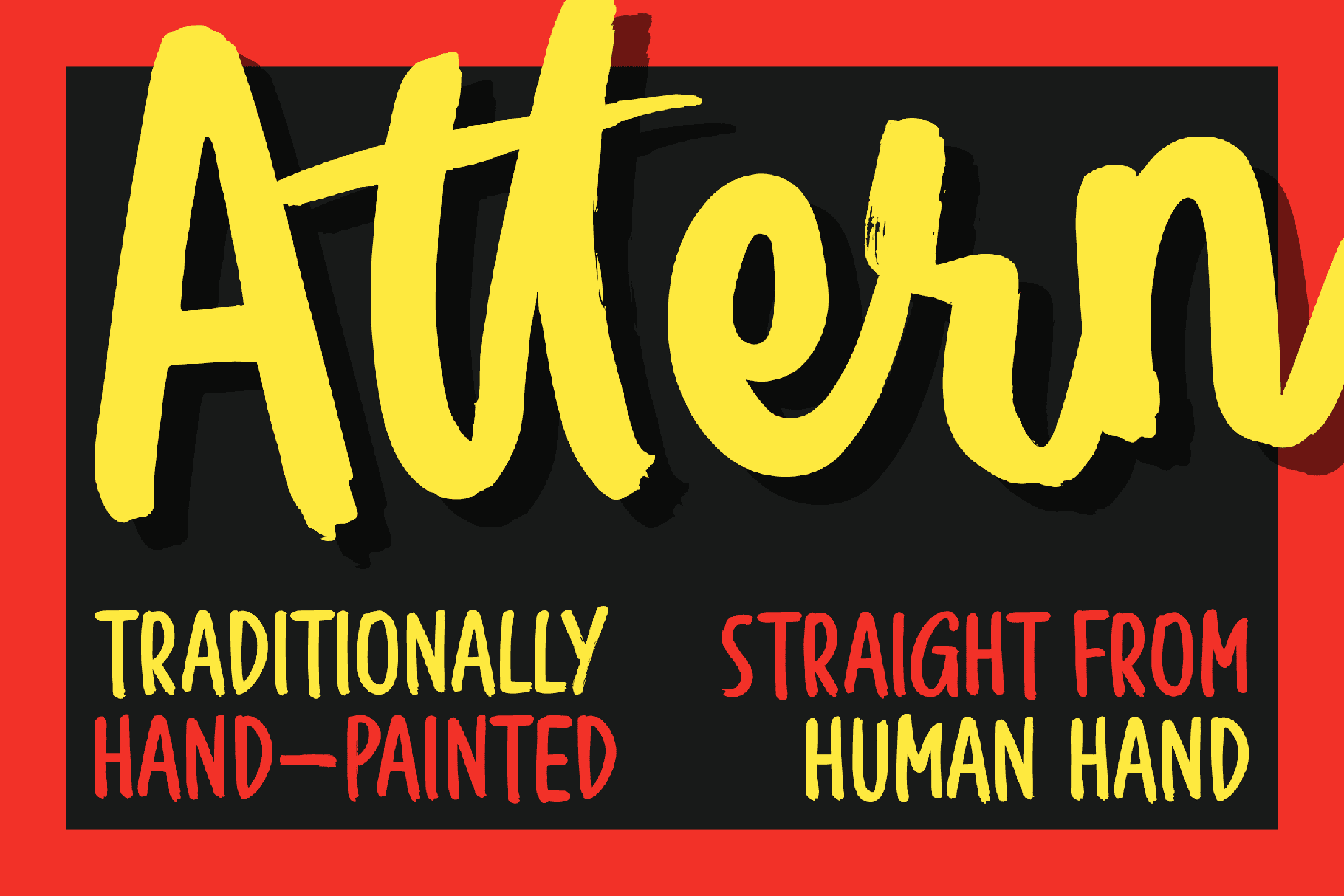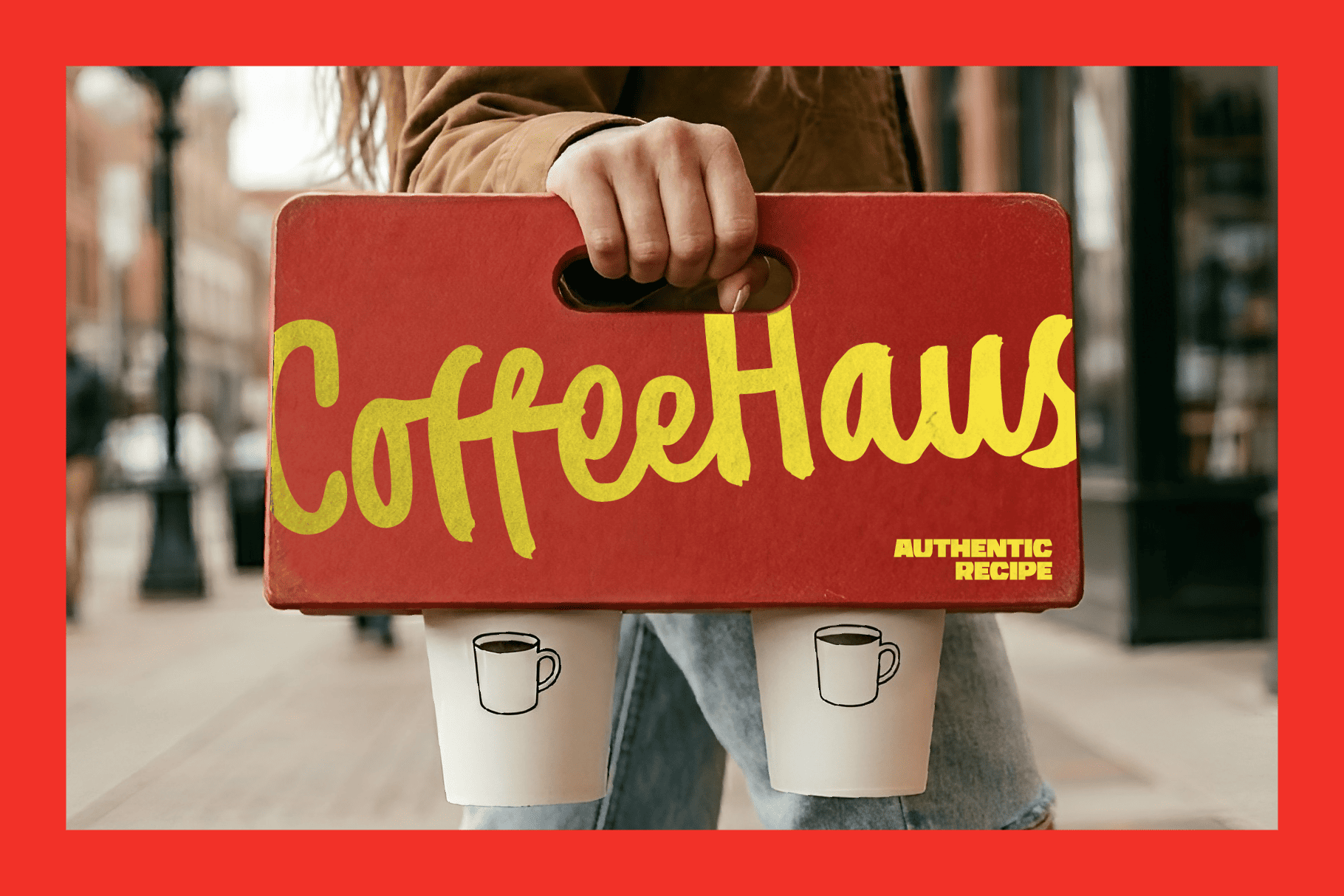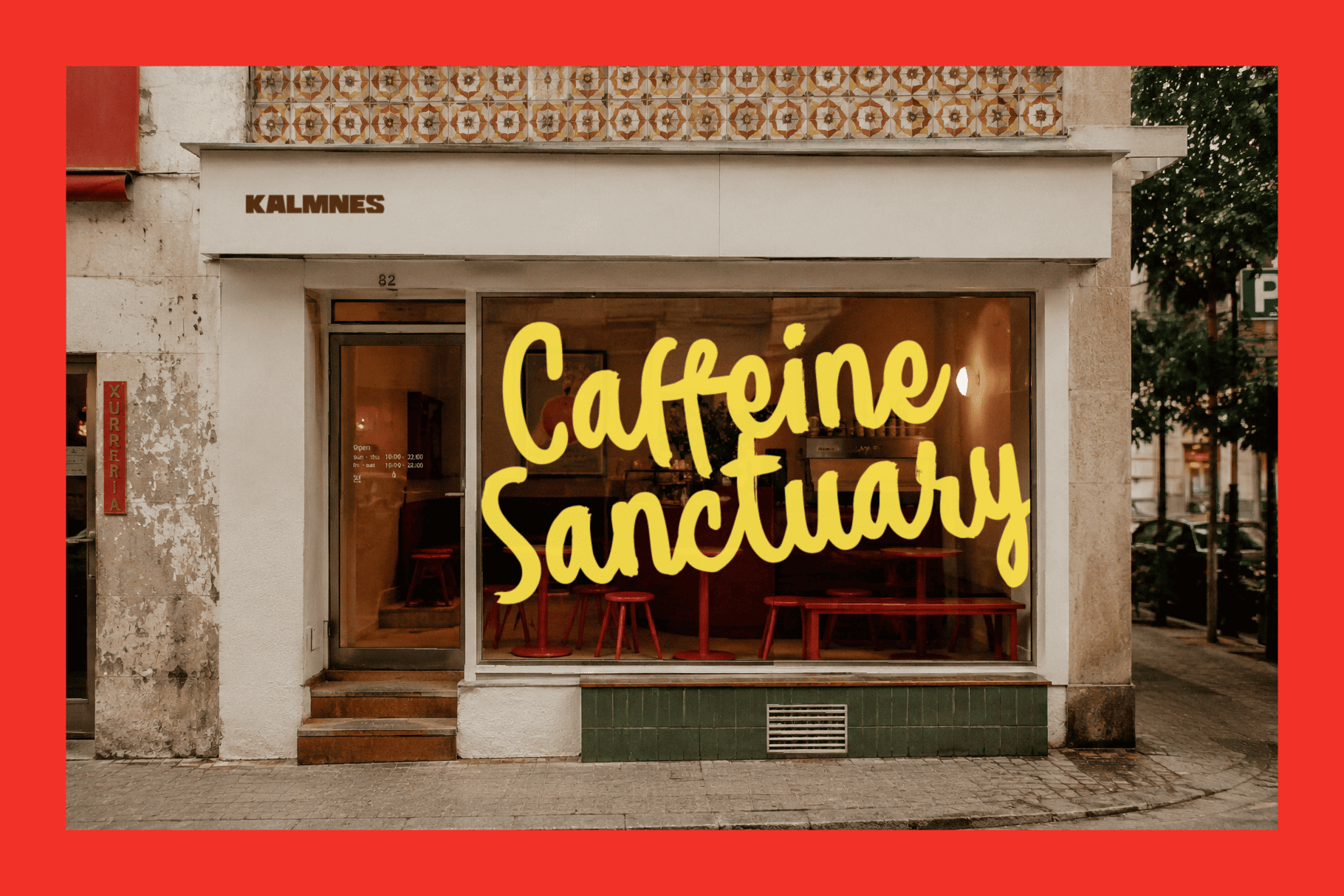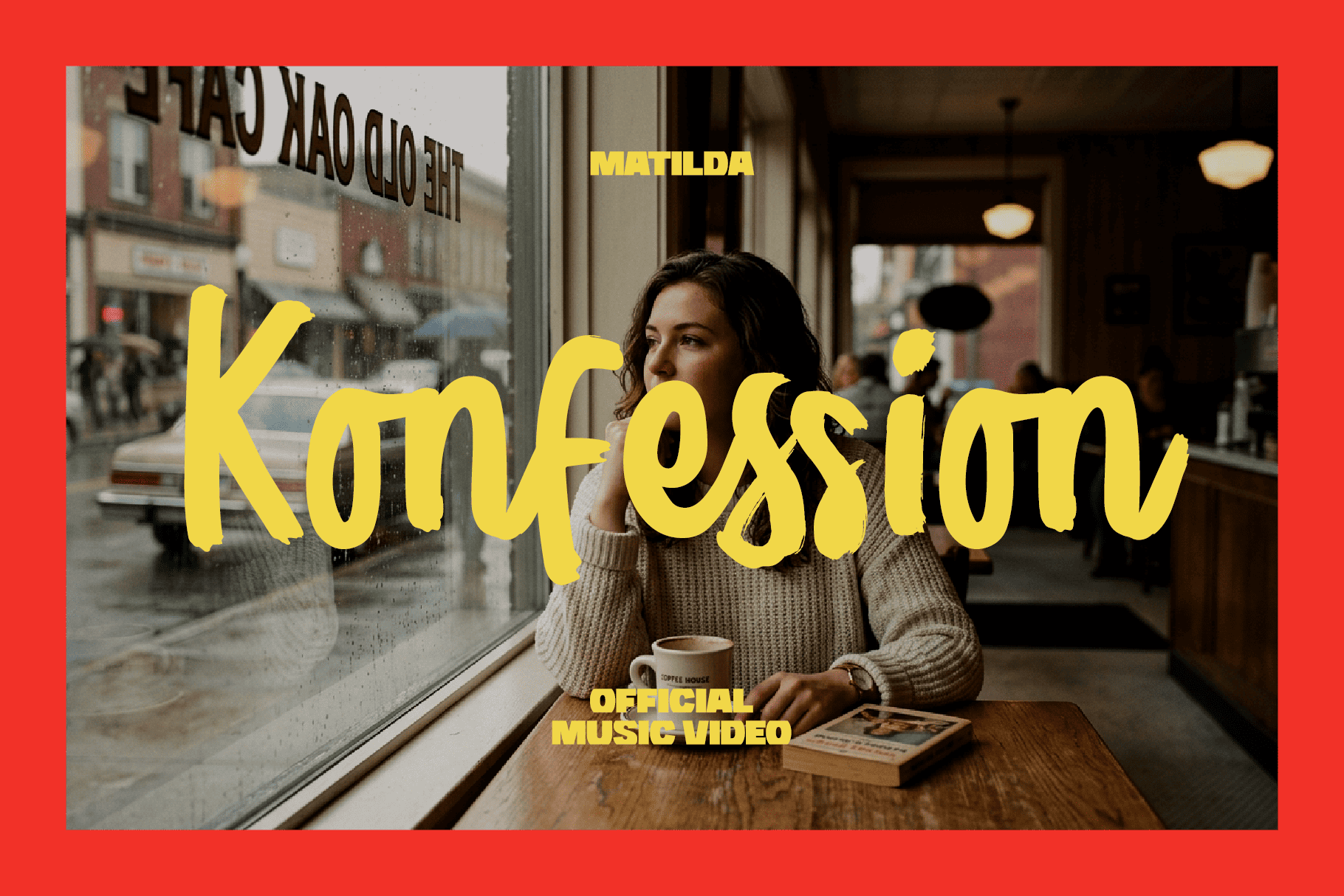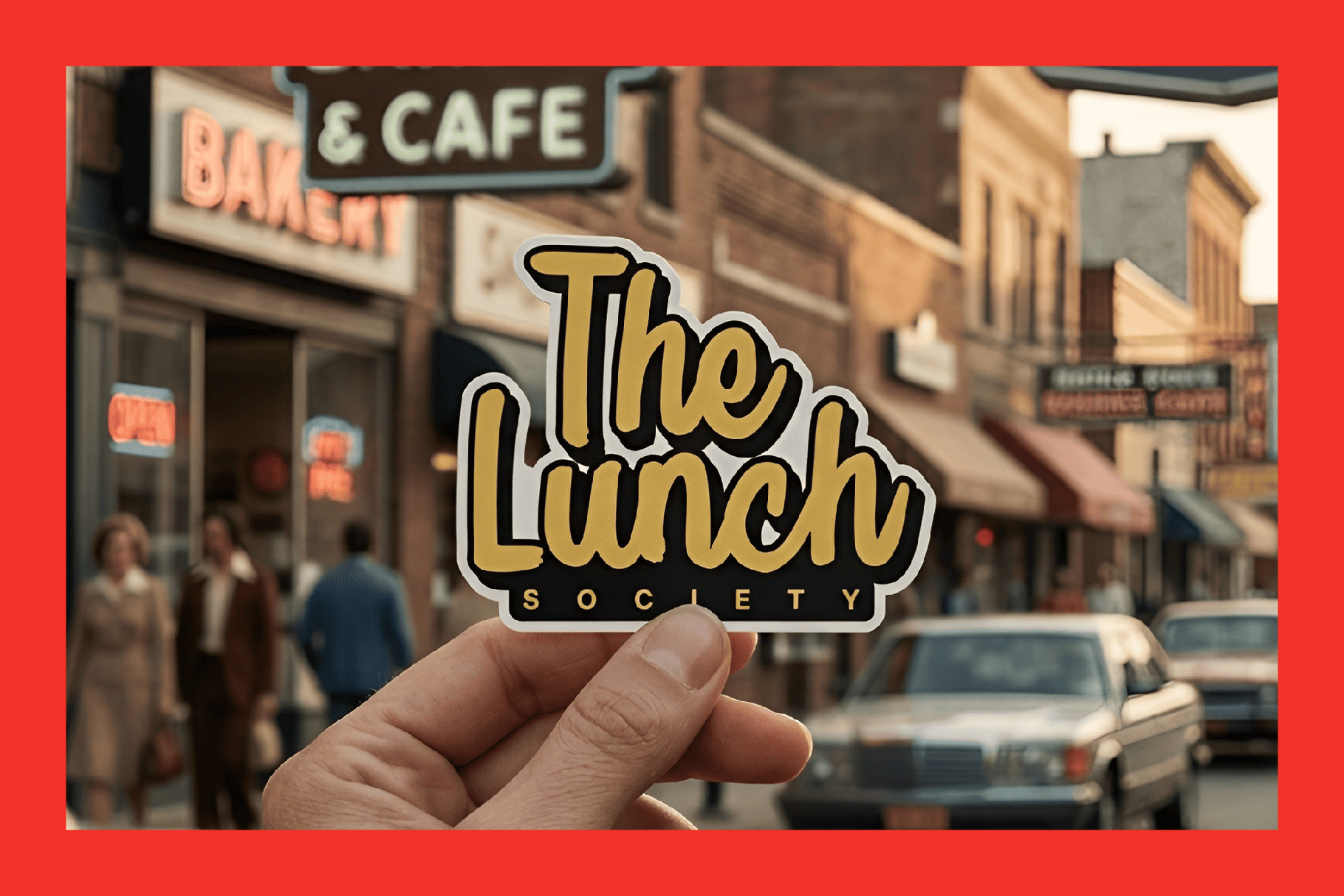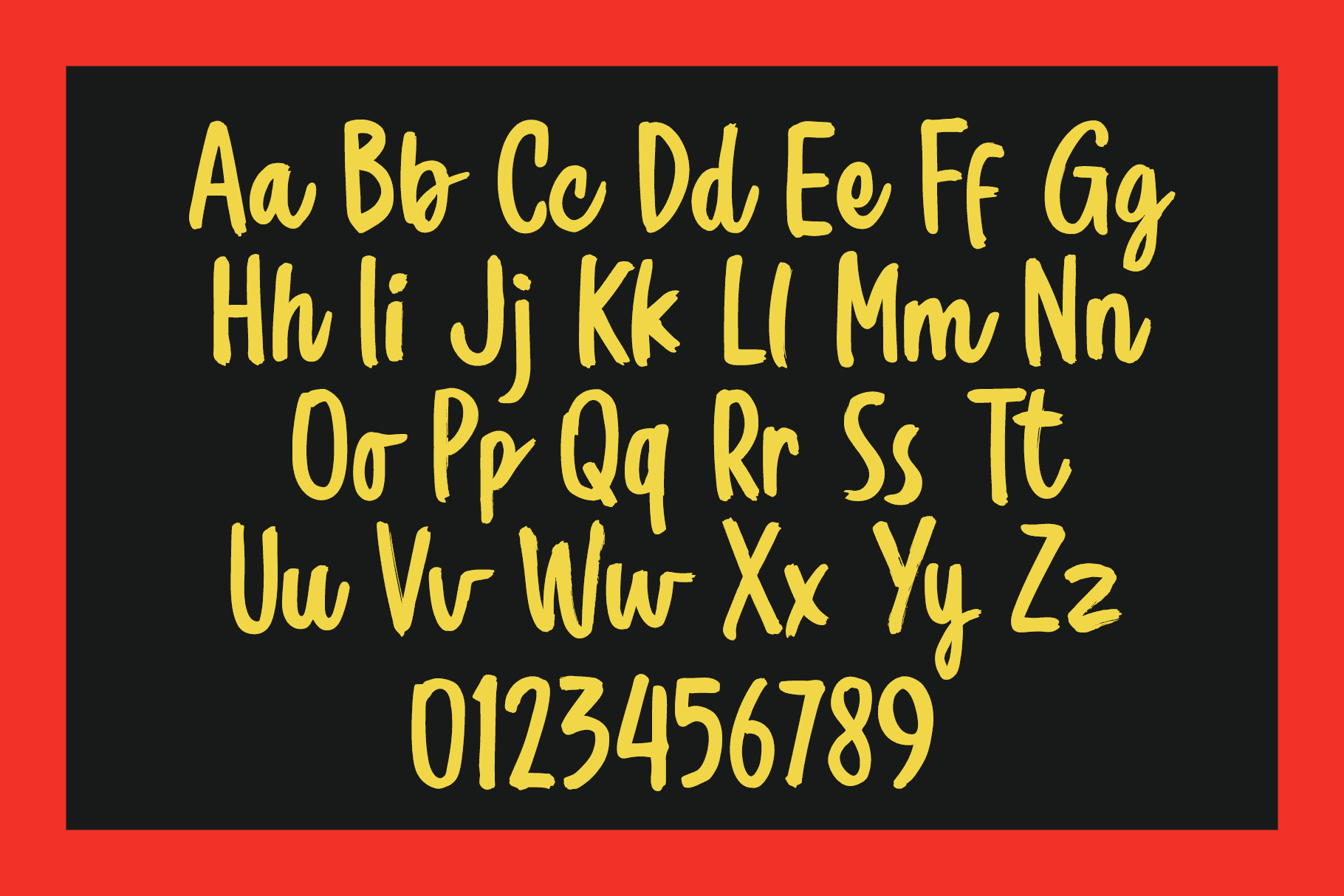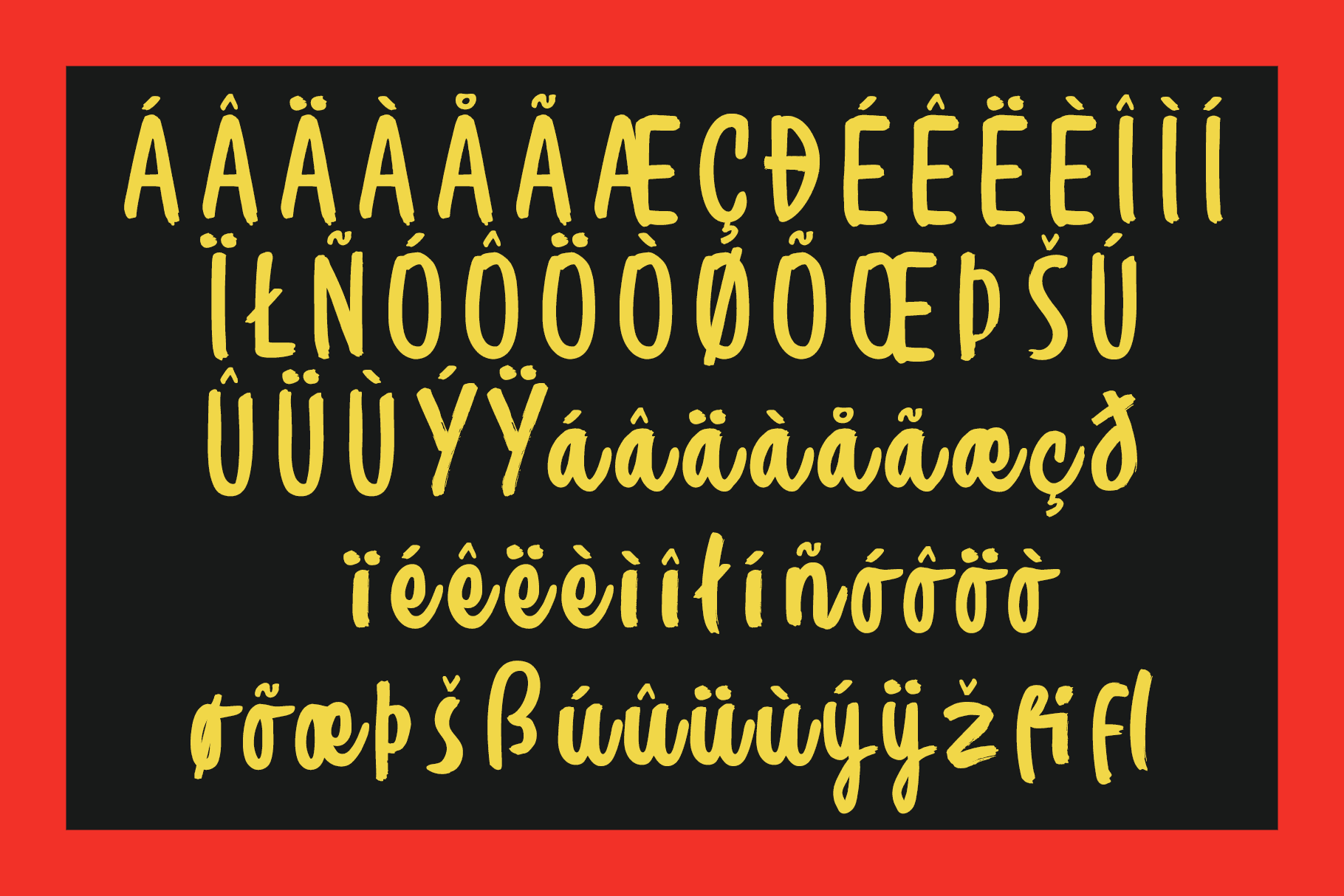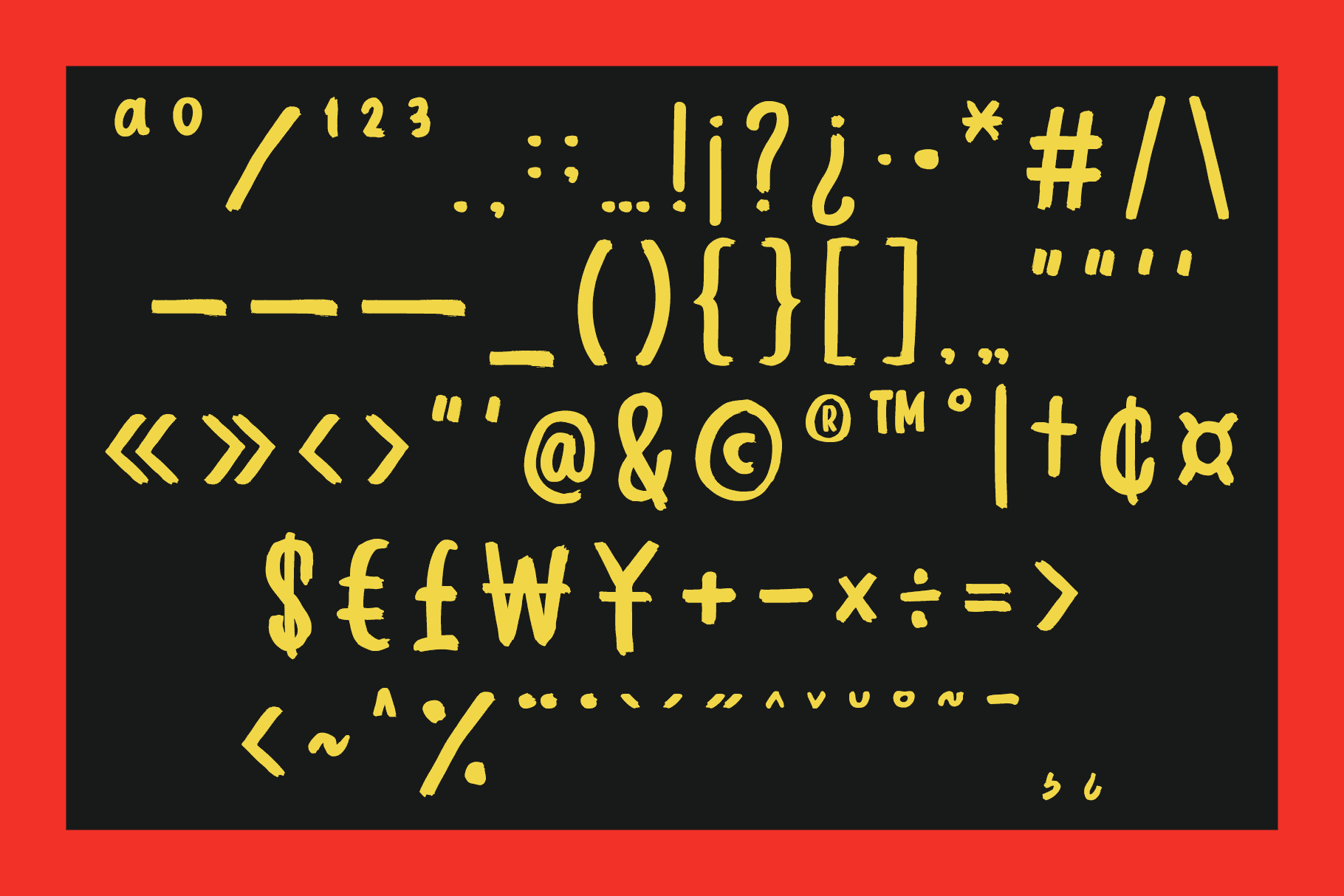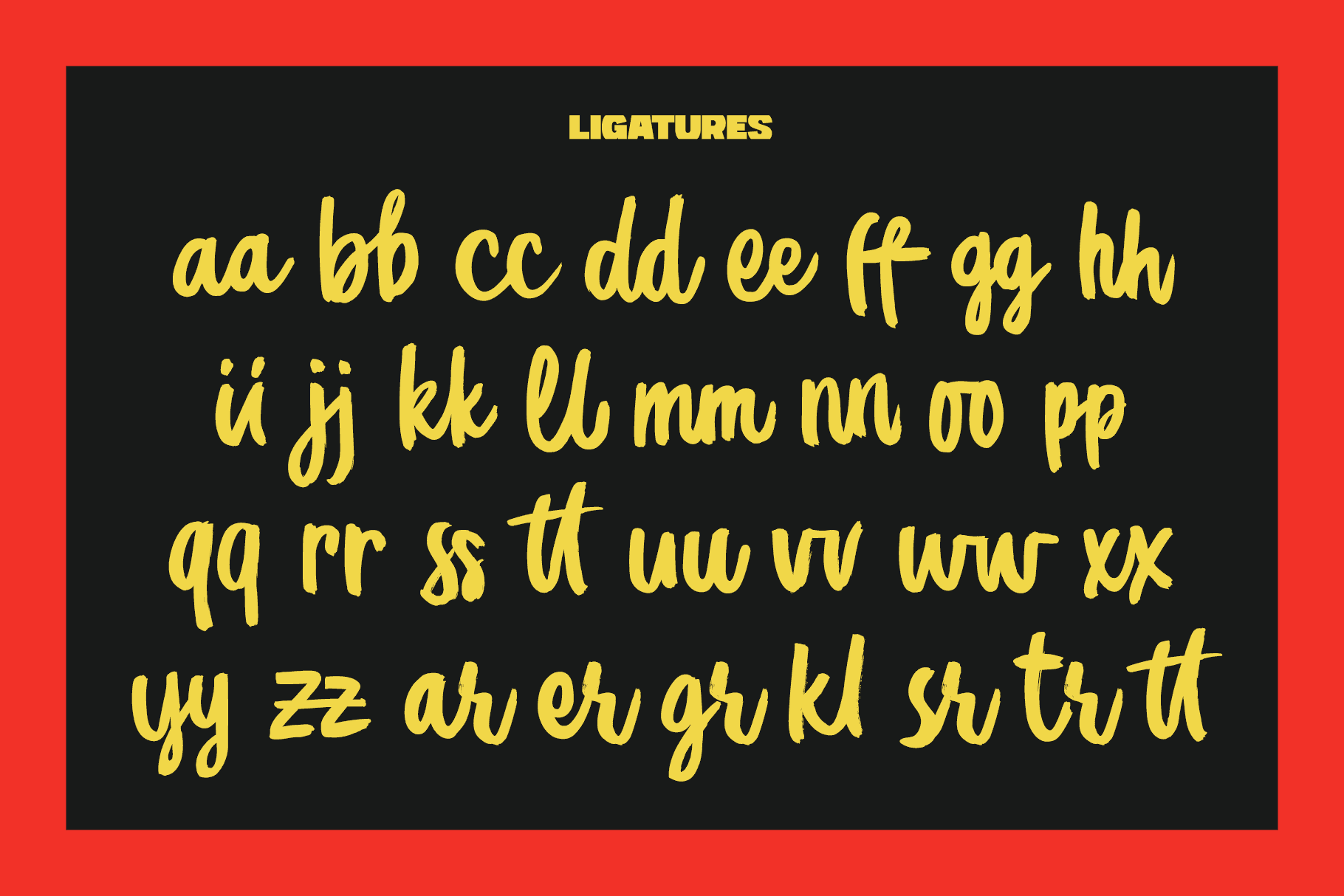
Attern – Script Handwriting Fonts
The Authentic, Hand-Painted Brush Font That Speaks Volume.
In an age where algorithms can paint, and AI can write, the most valuable luxury is the human touch. Meet Attern, a hand-painted brush font that refuses to be processed. It is a rebellion against the pixel-perfect and a celebration of the raw, the real, and the beautifully imperfect.
We didn’t just design Attern. We lived it. Every single letterform, every texture, and every stroke was born on physical paper, from the deep friction of a real brush and ink. This is not a simulation; it is a direct digitization of authentic human gesture.
Beyond a Typeface: A Visual Statement
Attern is a tool for building humanist brands. It is a powerful statement for human-made products, from small-batch artisanal goods to global campaigns that need a soul.
Use Attern to inject texture and personality into:
- Artisanal Product Packaging: (e.g., craft coffee labels, organic soap wrappers, hand-bound journals).
- Lifestyle & Fashion Branding: (e.g., screen-printed apparel, sustainable brand logos, denim patch designs).
- Hospitality & Food: (e.g., rustic café menus, chalkboard specials, craft beer labels).
- Event & Music Promotions: (e.g., band posters, album art, festival merchandise).
- Social Media Campaigns: (e.g., text overlays that break the feed and demand attention).
Don’t let your visual identity become another victim of digital sanitization. Let your typography speak with the same passion and humanity you put into your products. Make a choice that is fresh, honest, and undeniably human. Choose Attern.